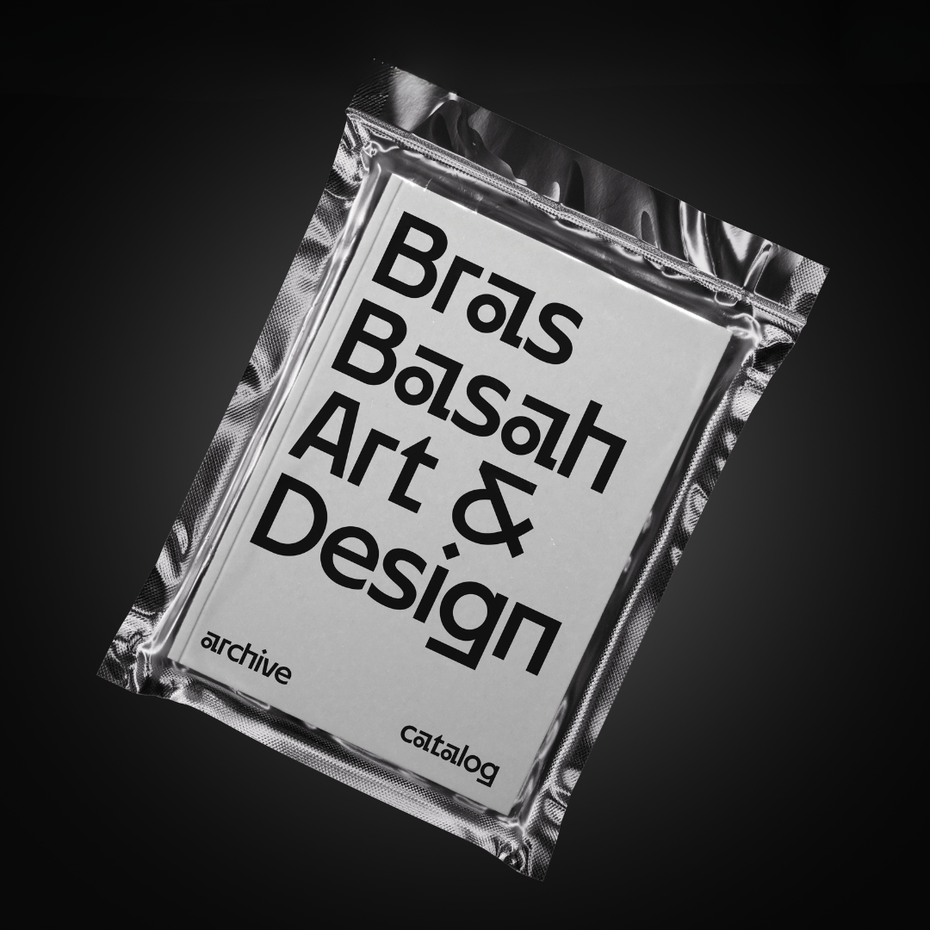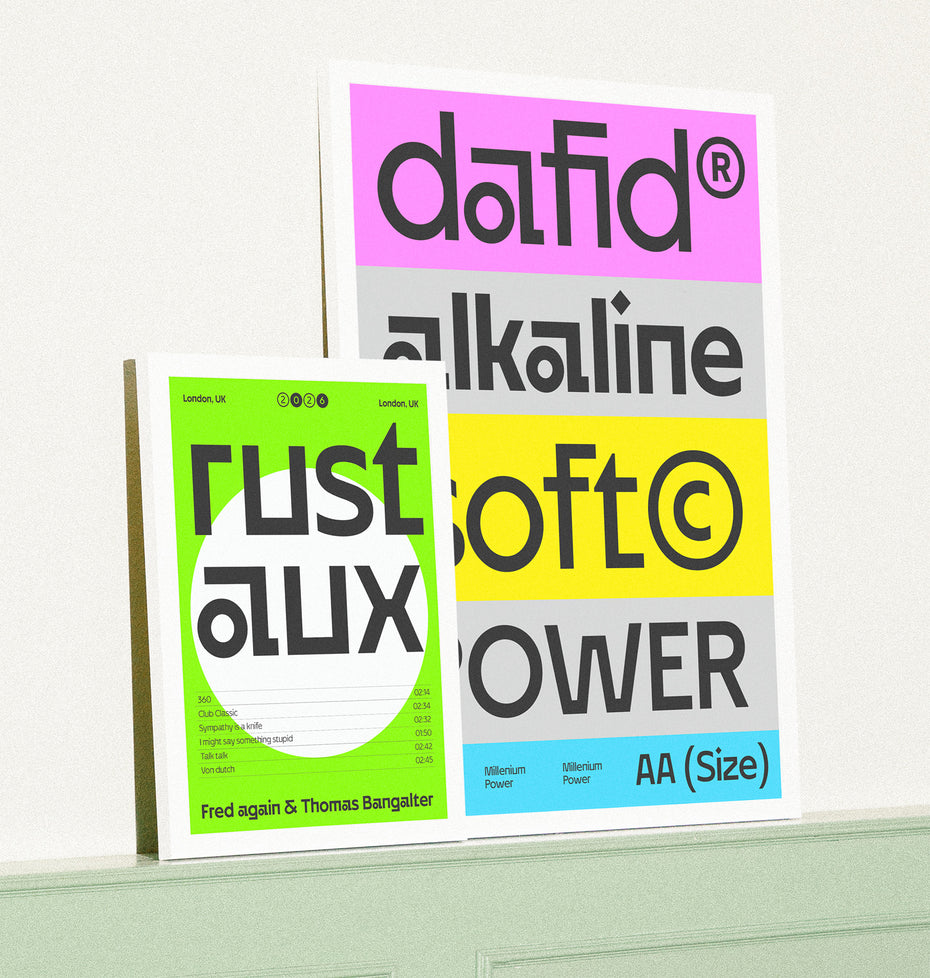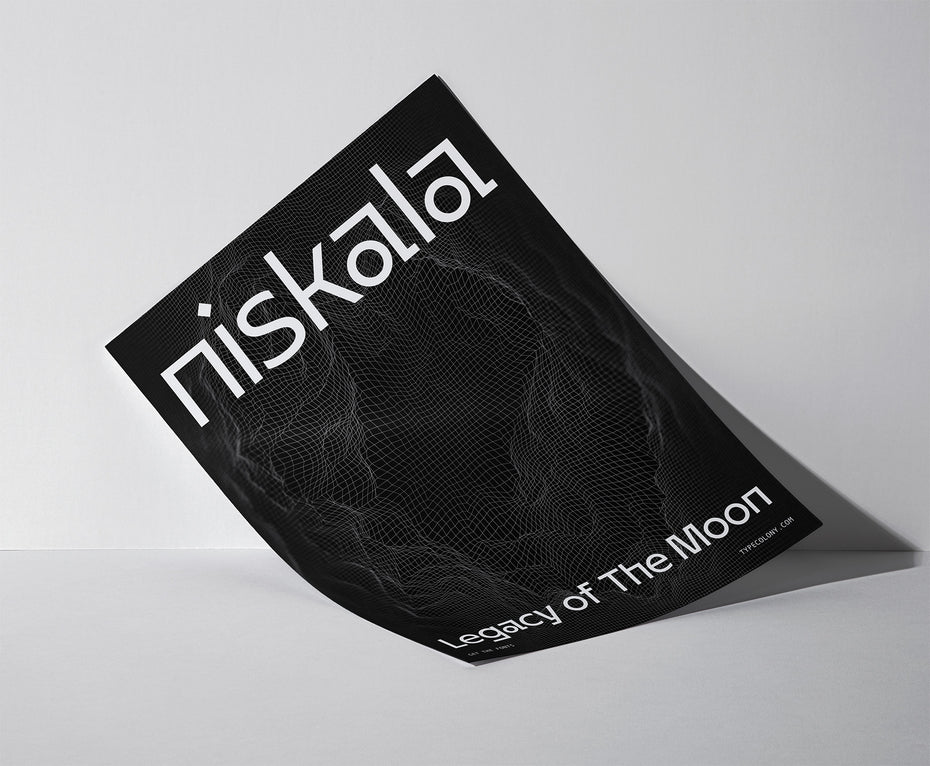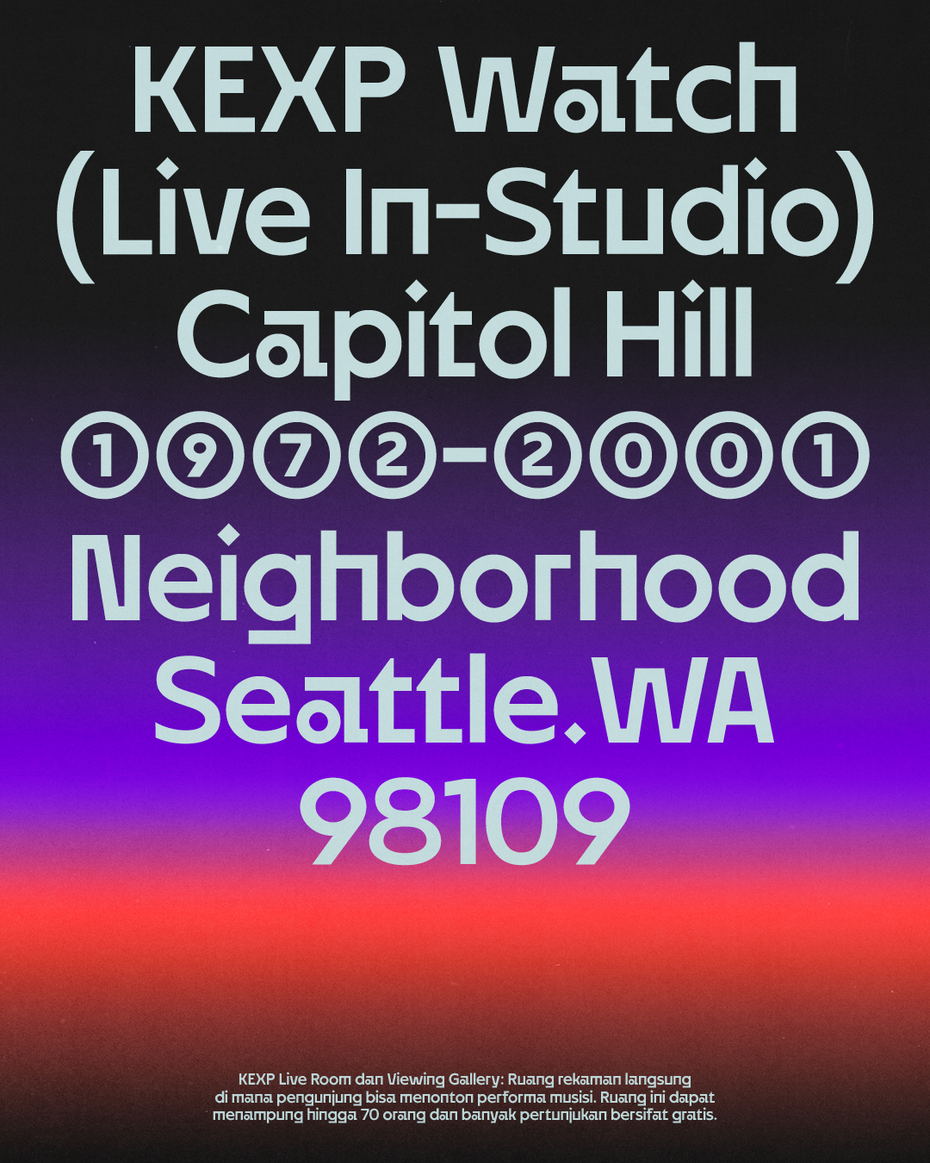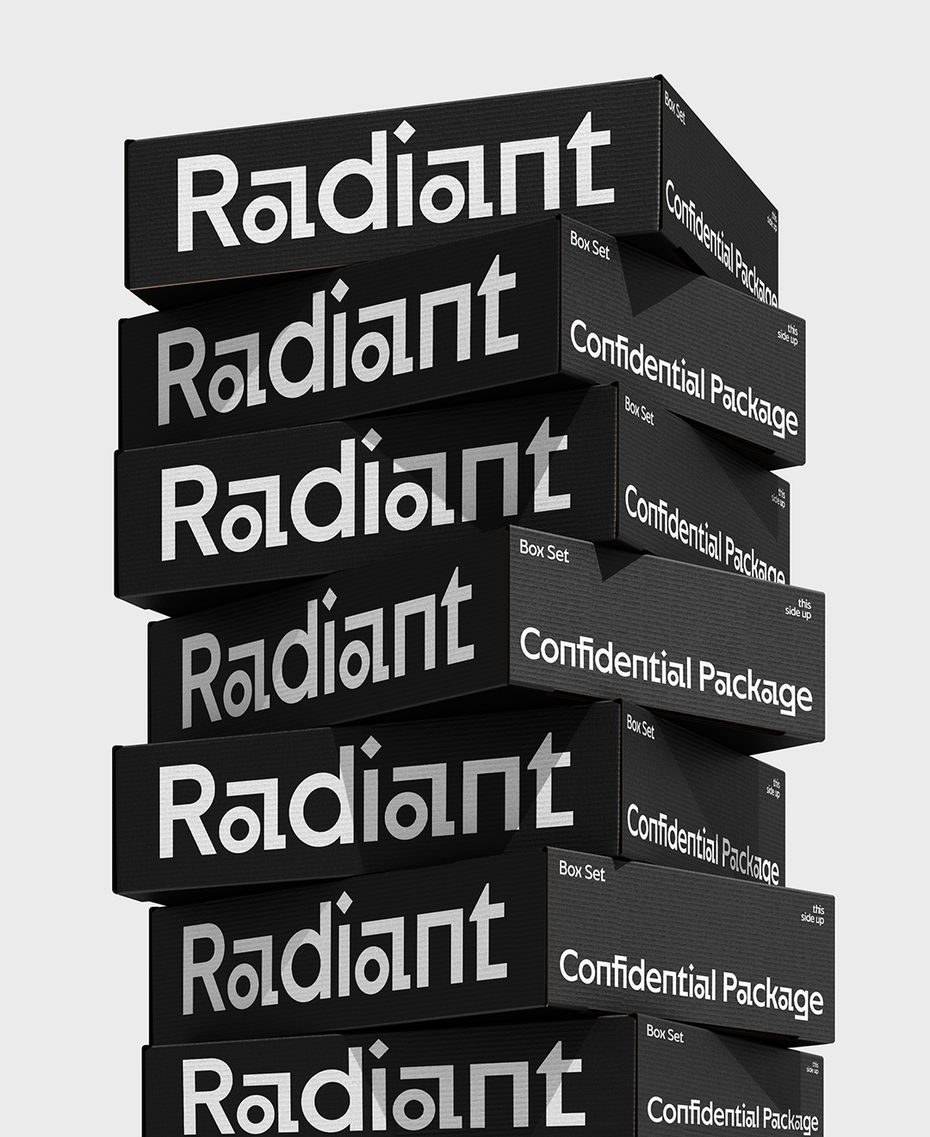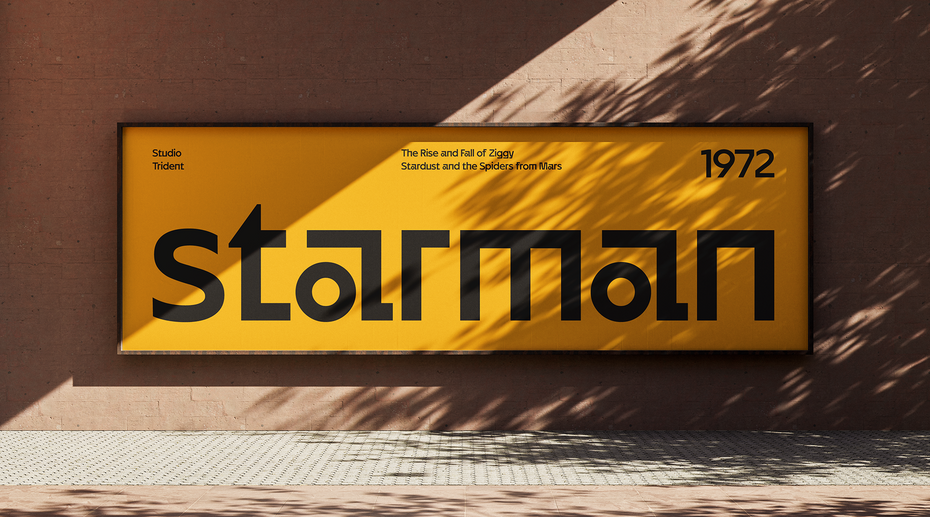
Neue Lunary draws its inspiration from NASA's Artemis program — the return mission that brings humanity back to lunar orbit, and one day, to the surface of the Moon itself. The typeface translates the visual ethos of modern spacecraft engineering — clean geometric primitives, instrument-grade clarity, the optimism of next-generation discovery — into letterforms designed for the language of future-facing brands.
Each glyph begins with pure circular and rectilinear geometry, then introduces small disruptions: an angular terminal that arrives unexpectedly, a stepped junction where most typefaces would smooth themselves out, a curve that closes with deliberate intent rather than convention. These are not decorative flourishes. They are the marks of a system that has been engineered, not merely drawn — the same logic that gives a lunar lander or a rocket fairing its particular kind of beauty.
The result is a typeface that feels familiar at first glance and unmistakable on second look. Built for brands, publications, and identity systems that want to signal forward motion without resorting to cliché.
Glyph Highlights
Notable details include the stepped terminal in the lowercase t and r, the angular interruption on the a and k, and the precisely circular construction of o, d, g, and b. The numerals are designed with a slightly mechanical character — at home in both editorial layouts and information-dense interfaces — while the punctuation has been drawn with the same engineered restraint as the letterforms themselves.
Best Suited For
Neue Lunary is designed for editorial posters, music and event identity, premium product packaging, cultural publications, exhibition design, and brand systems for technology, science, aerospace, and forward-looking lifestyle. It is most powerful at display sizes, where its geometric character and subtle disruptions read with full intent.